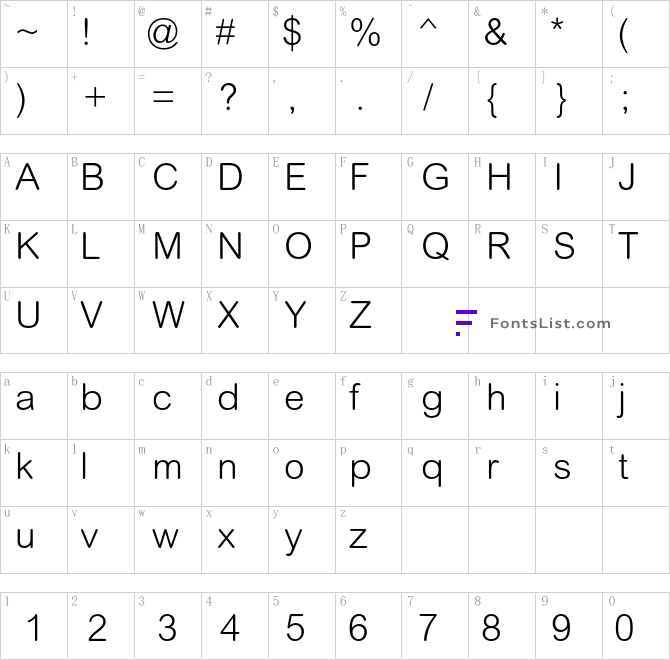
- Font Name:Arial Rounded MT Std Light
ArialRoundedMTStd-Light.ttf is a very beautiful artistic font, ArialRoundedMTStd-Light.ttf is widely used in the design and printing of various books and pictures,ArialRoundedMTStd-Light.ttf has a strong visual impact,ArialRoundedMTStd-Light.ttf is a commonly used font in newspapers, magazines and books, and is used in posters, e-commerce Poster design, store design, logo design, font design and other fields.ArialRoundedMTStd-Light.